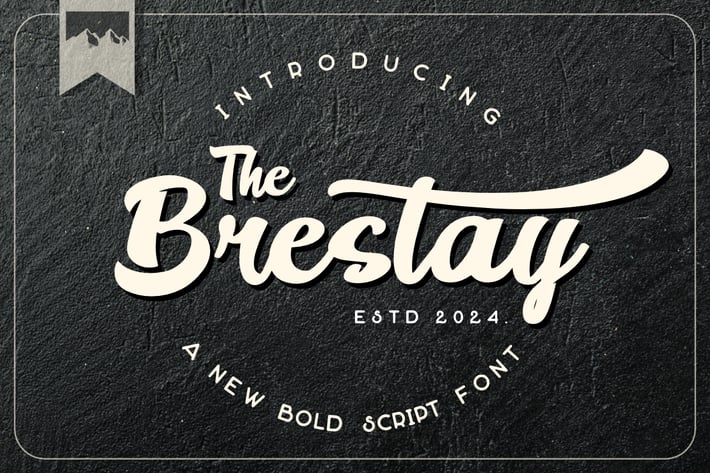
Brestay Bold Script Font
Brestay Bold Script Font, This font is made with a high premium quality level which you can use as flyers, quotes, posters, banners, packaging, merchandise, logotypes and much more.